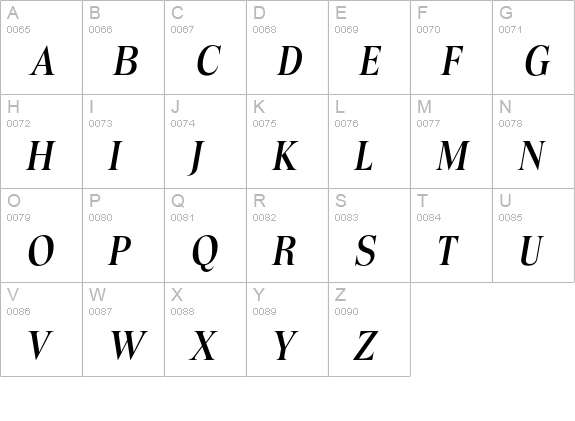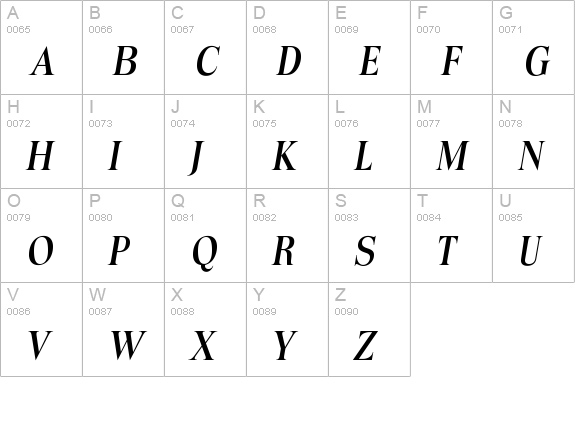
Toledo-MediumIta Font Details
Introducing Toledo-MediumIta, a captivating and versatile font that effortlessly combines elegance with modernity. This exquisite typeface is perfect for adding a touch of sophistication to any design project, be it branding, advertising, or editorial work. Toledo-MediumIta boasts a harmonious balance between clean lines and subtly curved edges, resulting in a refined and graceful appearance. Its medium weight strikes the ideal balance between legibility and impact, making it suitable for both large headlines and body text. This font's timeless appeal is further enhanced by its versatility, allowing it to effortlessly adapt to various design themes and concepts. Whether you're aiming for a classic and timeless look or a contemporary and edgy vibe, Toledo-MediumIta will be the perfect complement to your creative vision. The best part? Toledo-MediumIta is freely available to download at FontsMarket.com. Yes, you read that right! This stunning font can be yours at no cost, allowing you to bring your design ideas to life without breaking the bank. So why wait? Take advantage of this incredible offer and elevate your designs with the elegance and charm of Toledo-MediumIta. Download it now and unlock endless creative possibilities!